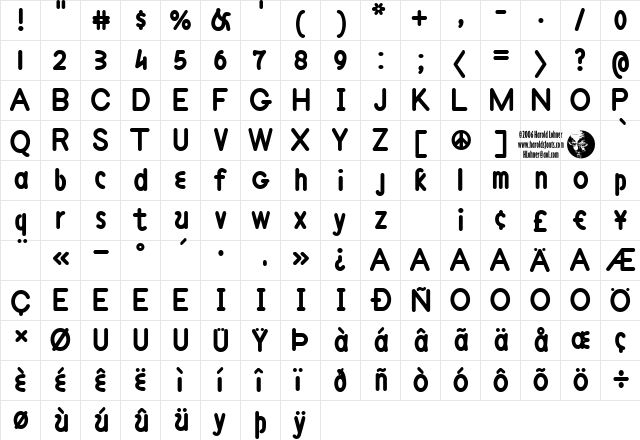
Philadelphia LineBold Aligned Regular
Design Context for Philadelphia LineBold Aligned Typeface
Philadelphia LineBold Aligned offers clean, dependable letterforms without strong stylistic allegiance, making it a practical choice for designers who need flexibility. The heavy weight commands attention and anchors typographic hierarchies.